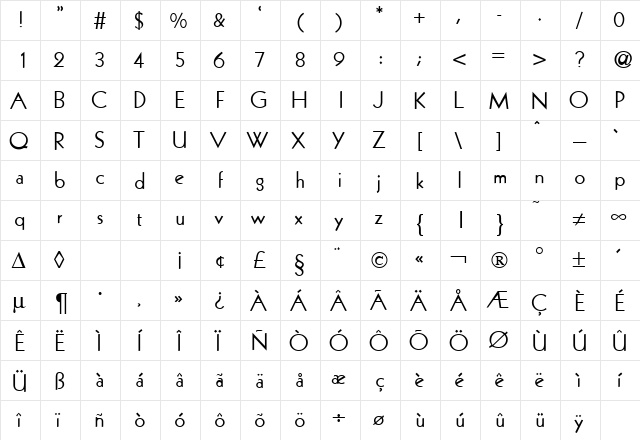
KochOriginal Regular
Design Context for KochOriginal Typeface
KochOriginal is a composed and adaptable typeface that performs quietly and consistently across a wide range of design contexts.